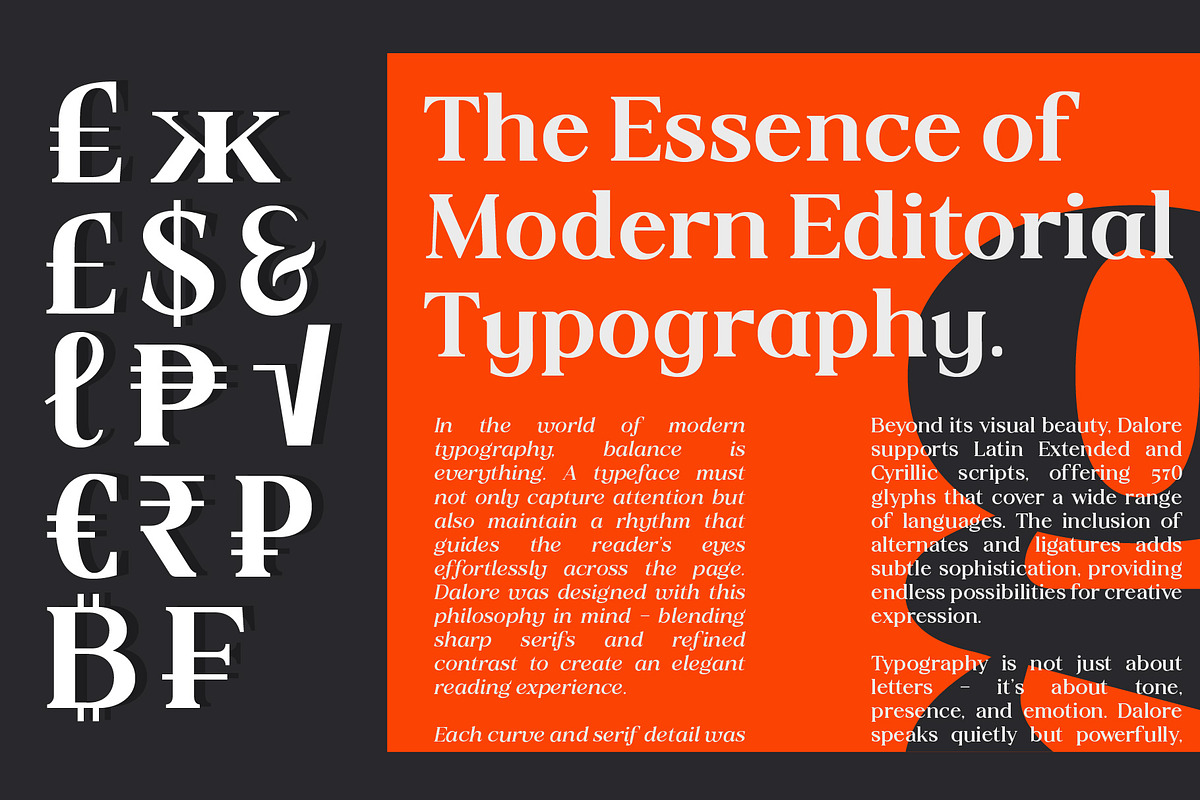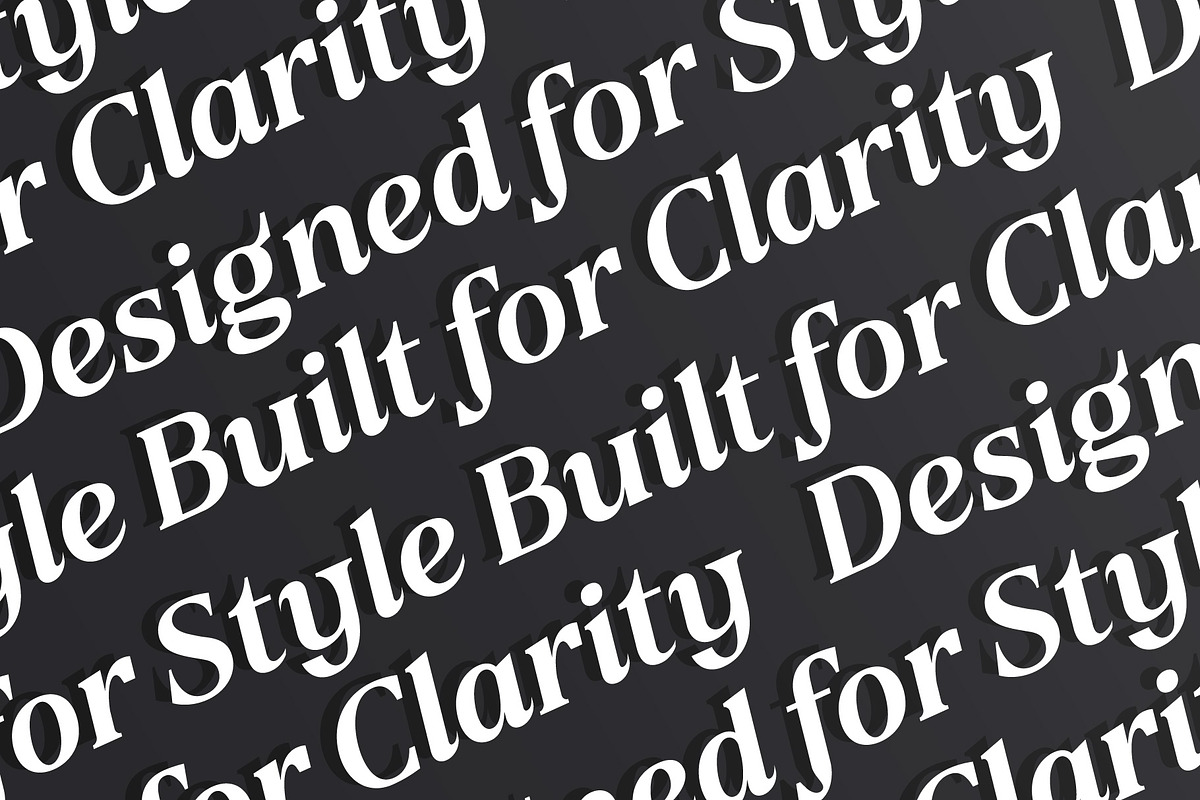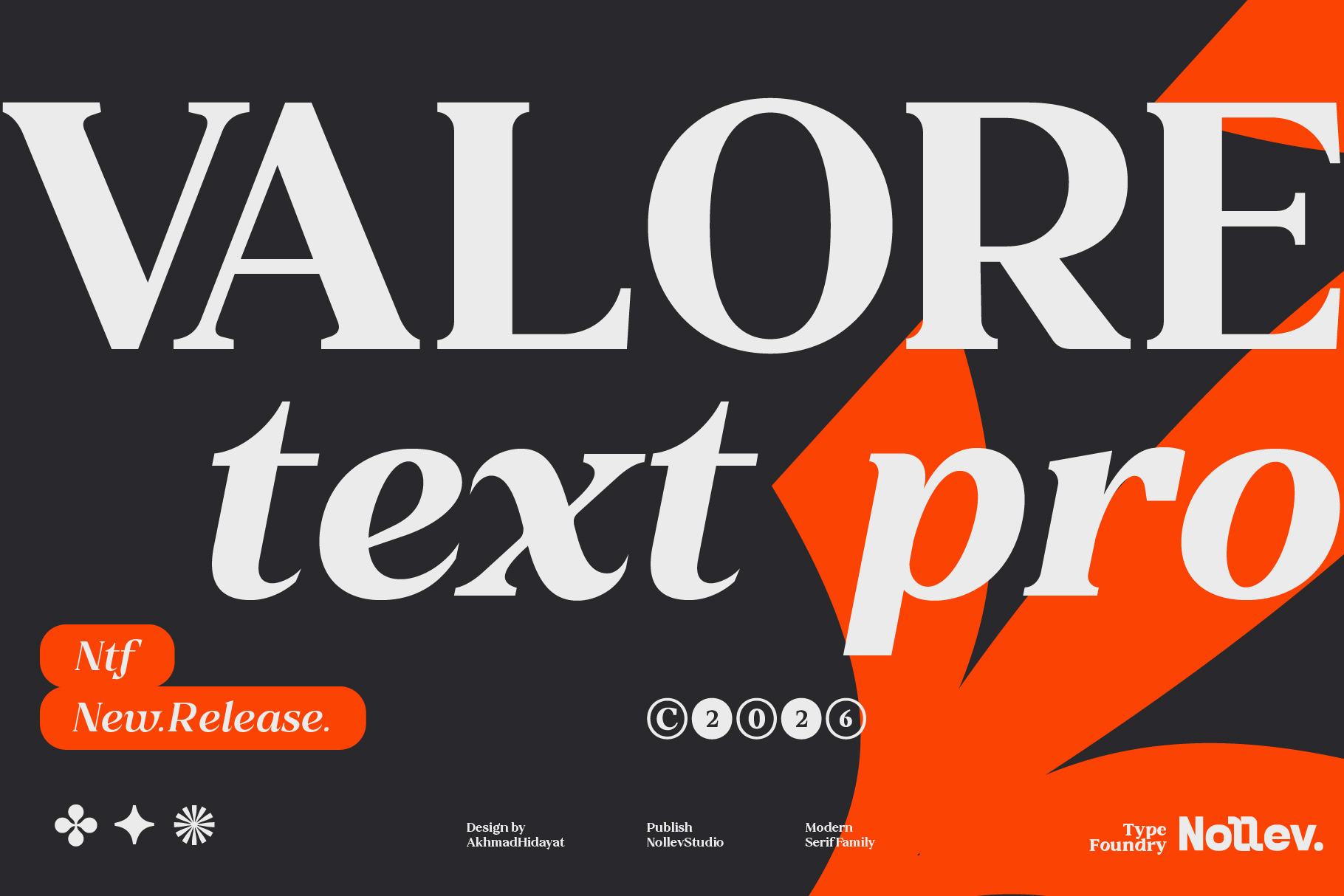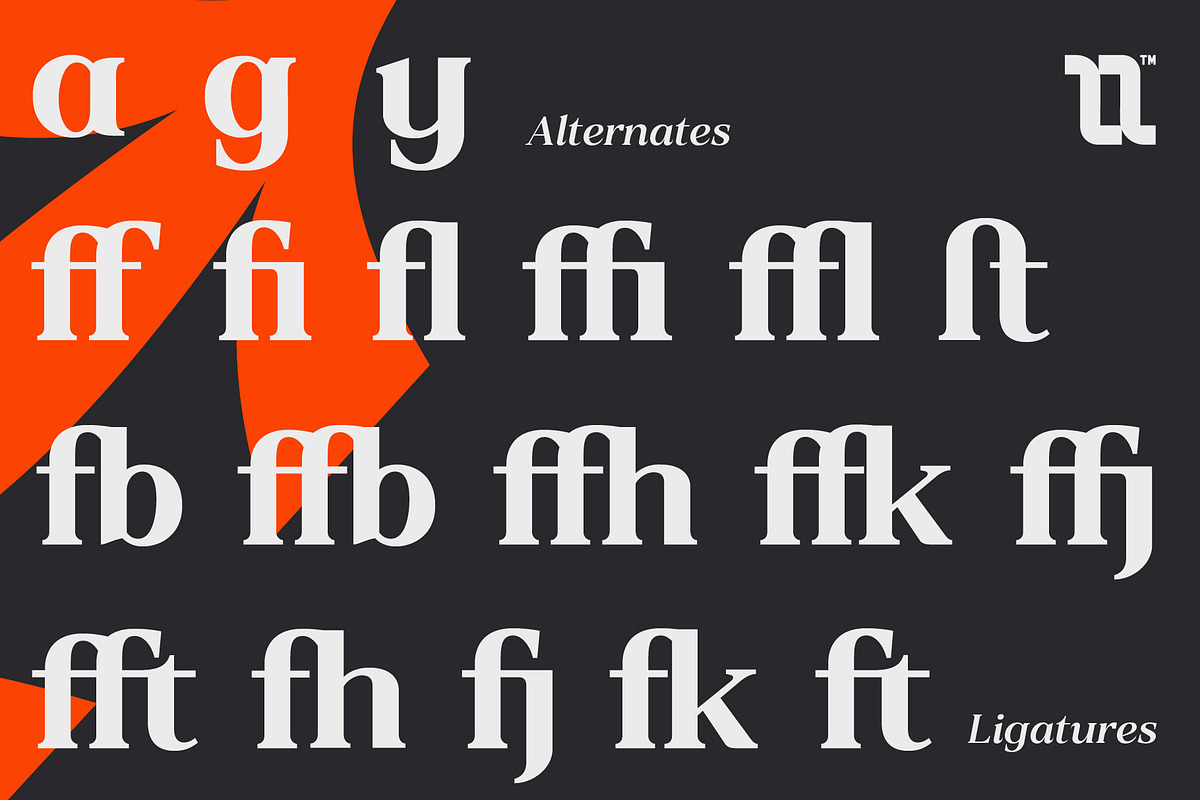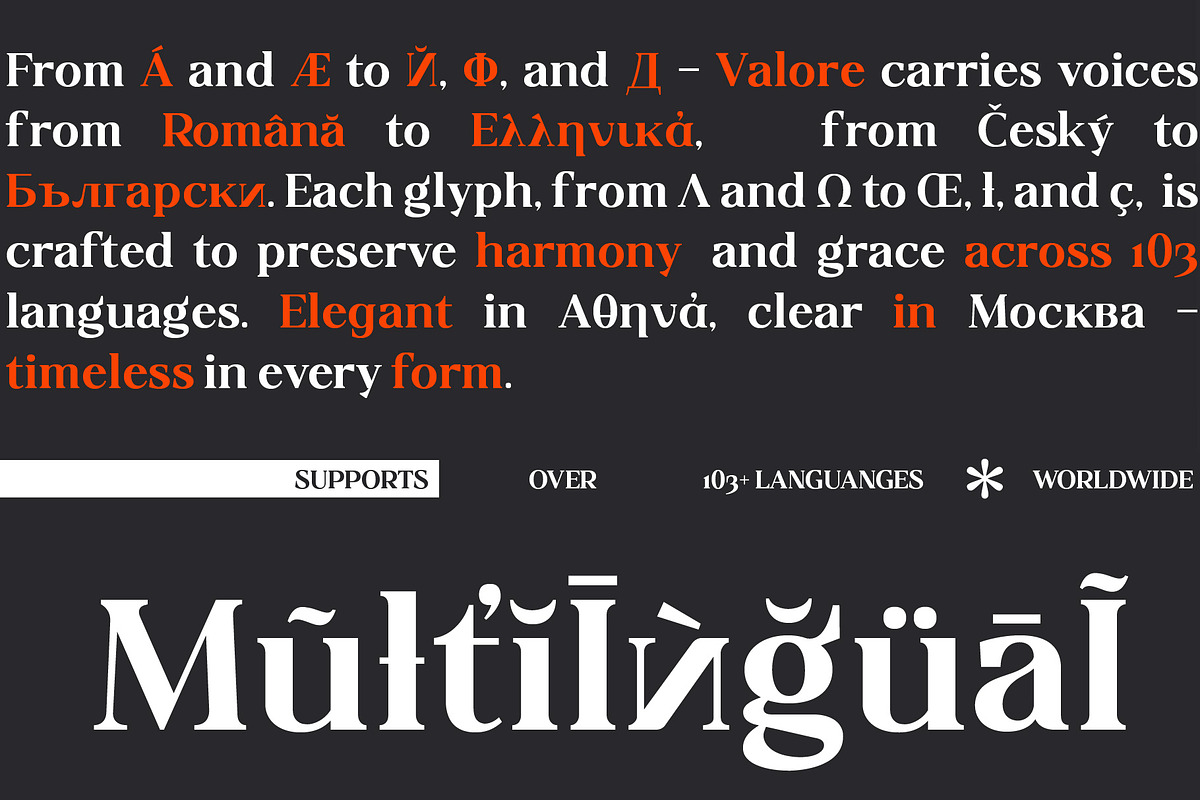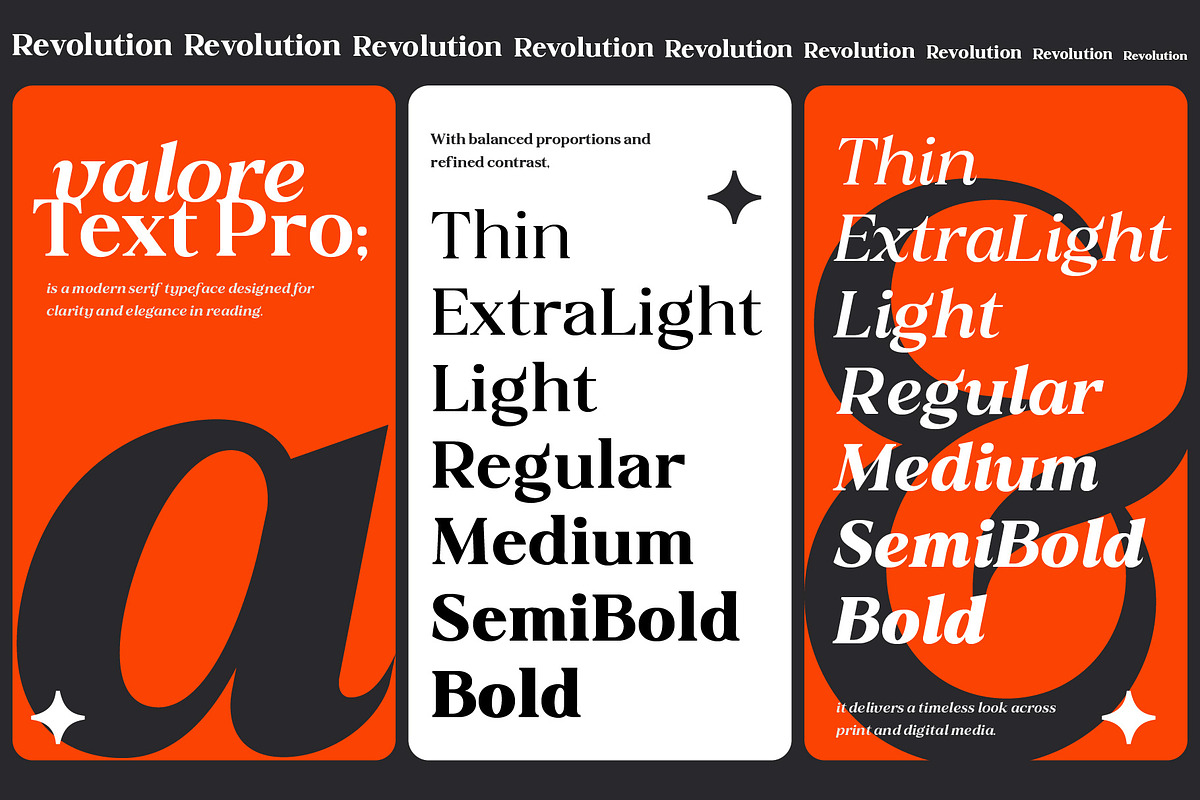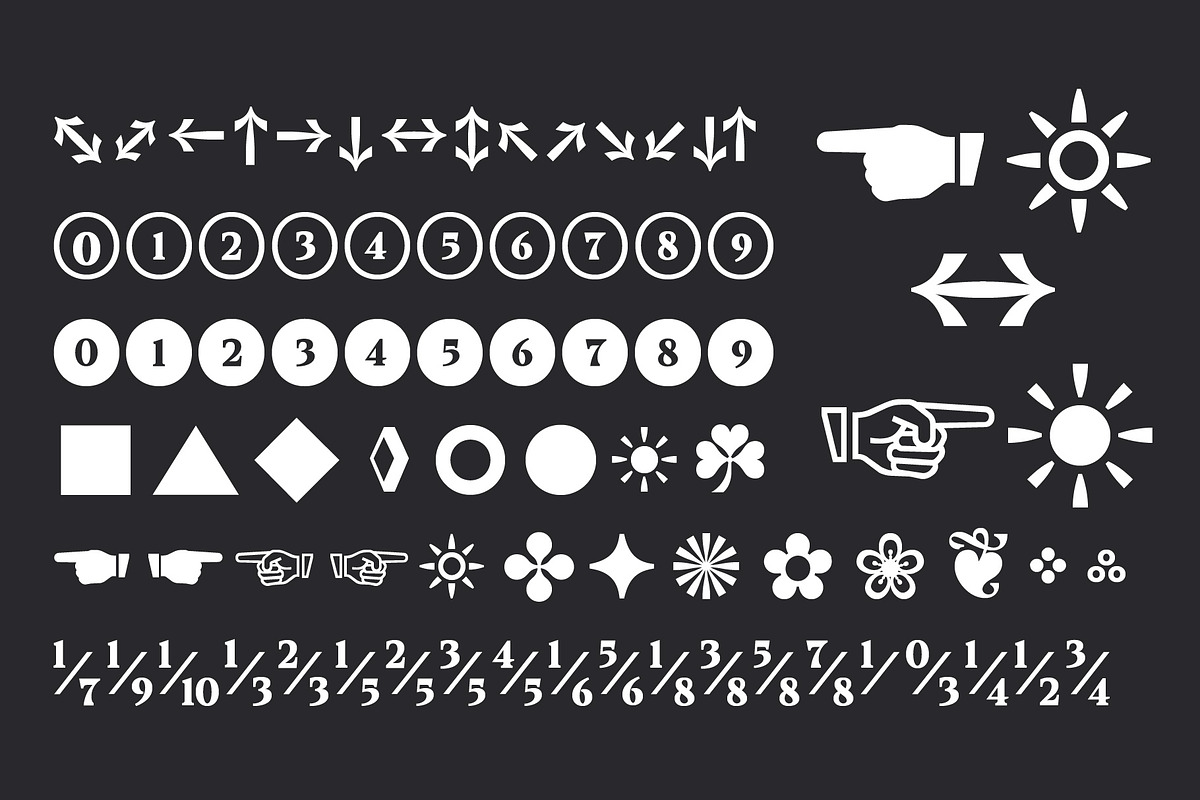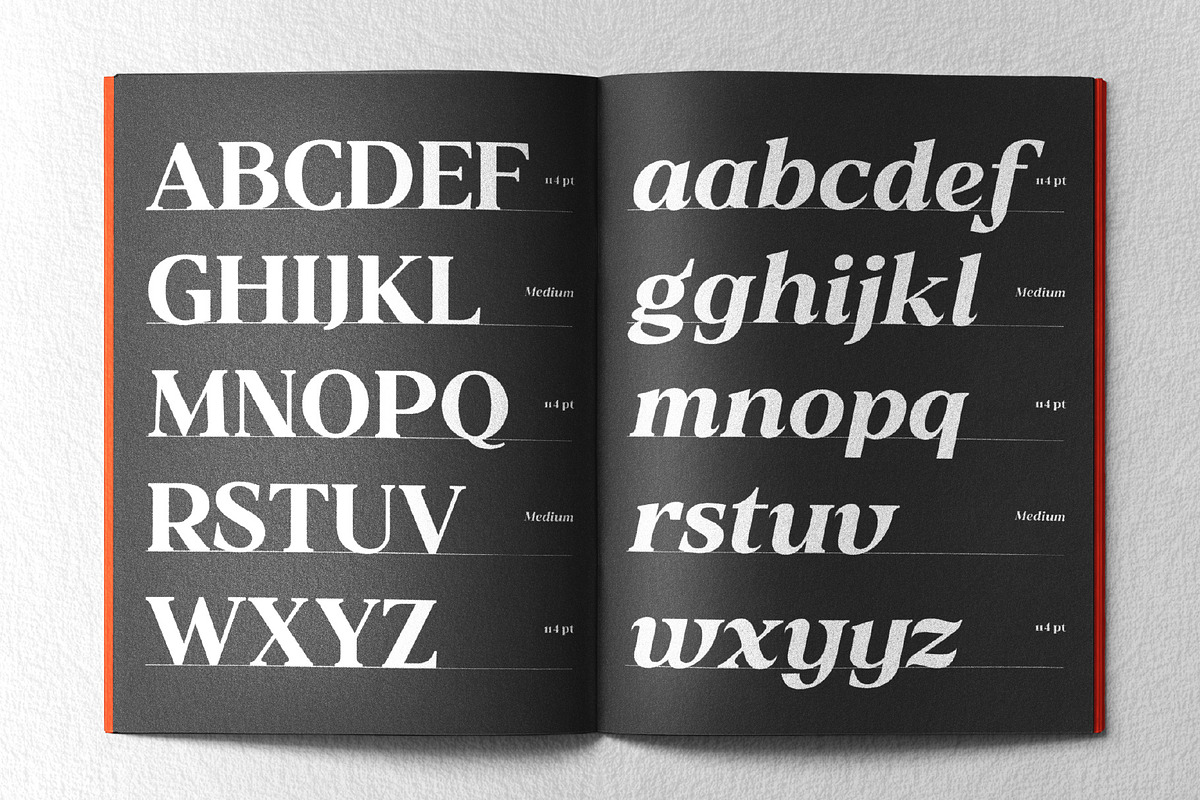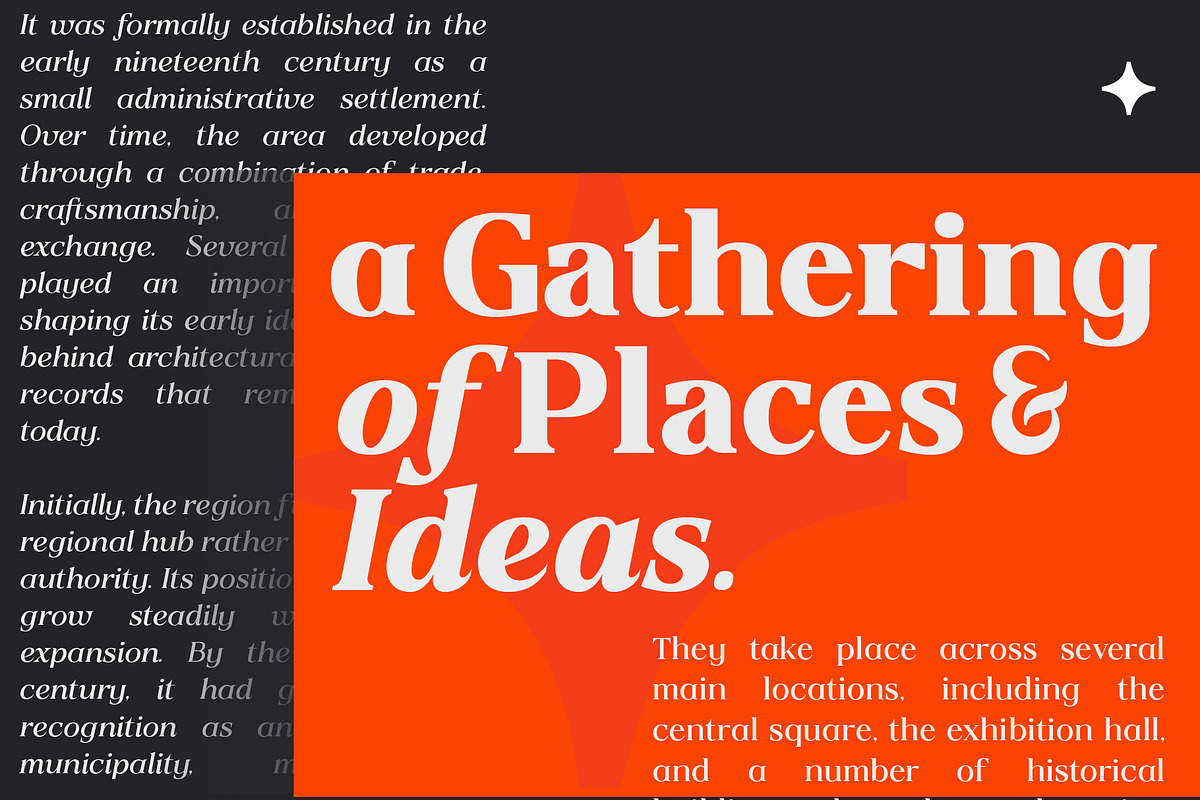
Valore Text Pro – Font Family
Valore Text Pro is a classic modern serif font that blends timeless elegance with clean, contemporary forms. Designed for both headlines and body text, this typeface offers excellent readability and a refined presence across all design contexts.
Featuring 14 styles — from Thin, Extra Light, Light, Regular, Medium, Semi Bold, Bold, and their matching Italics — Valore Text Pro gives you full flexibility to create balanced, sophisticated typography.
With 776 glyphs, multilingual support, and unique symbols, this font family is crafted for versatility and high-quality editorial or branding projects.
✨ Features
- 14 font styles (7 weights + matching italics)
- 776 glyphs
- Multilingual support | Latin Extended, Cyrillic, Greek
- Unique symbols & ligatures
- Classic yet modern aesthetic
- Great for both display and text use
🎯 Perfect For
- Editorial design & magazines
- Elegant branding & professional logos
- Book covers & page layouts
- Website & UI design
- Minimalist typographic posters